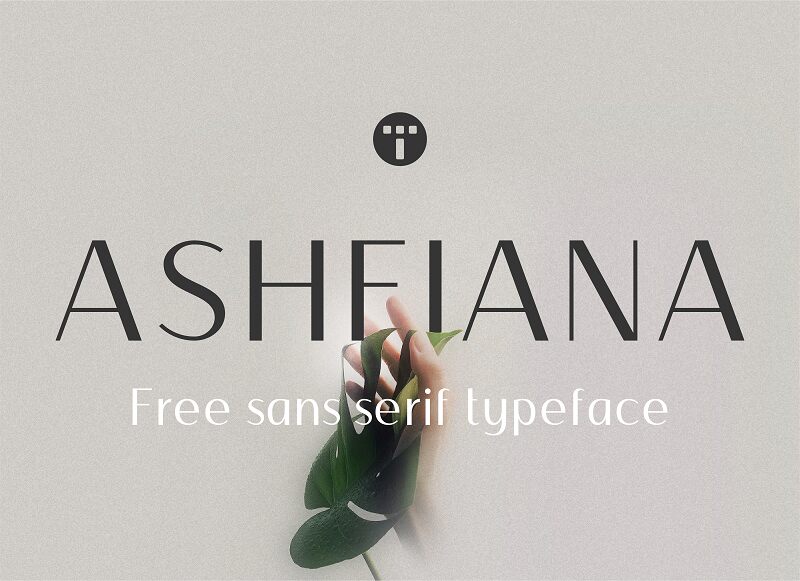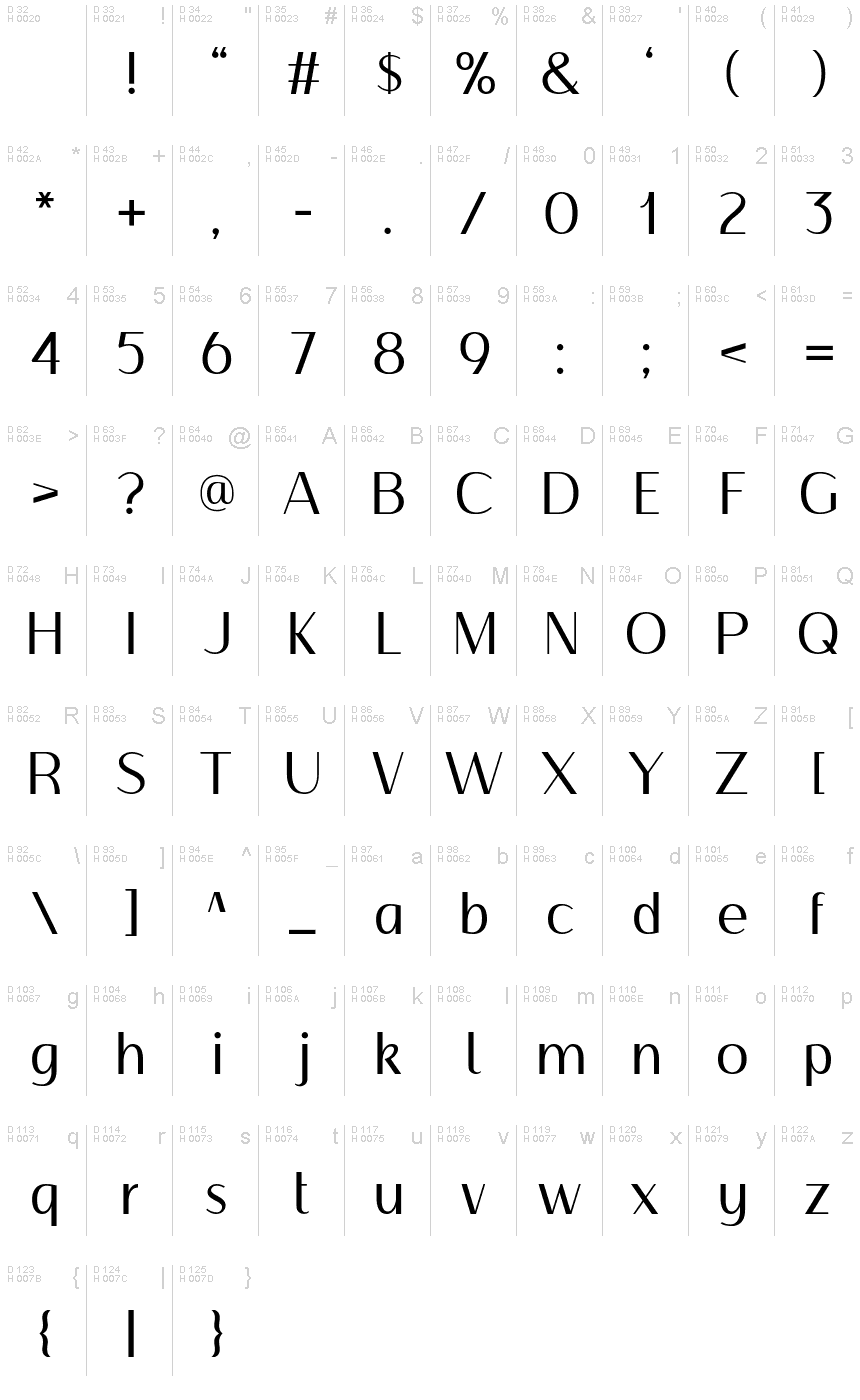
Ashfiana Regular
Ashfiana is a sleek and modern sans-serif font designed by Toufique Islam. Its semi-light weight makes it a great option for projects where you want to convey a sense of sophistication and elegance, without being too heavy or overpowering. Ashfiana's clean lines and minimalist design make it perfect for use in branding, logos, and headlines. It also works well in web design, as its legibility ensures that your message is clear and easy to read on any screen size. Whether you're crafting a minimalist website or designing an elegant brochure, Ashfiana's semi-light font is the perfect choice for your next project.